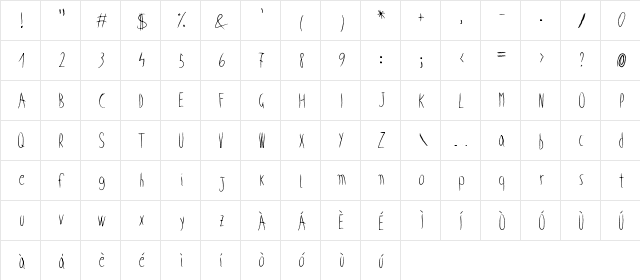
Wicked child Regular
| Foundry | Marco Ballar |
| Designer | Marco Ballar |
Design Context for Wicked child Typeface
Wicked child trades formality for fun, with bouncy, characterful letterforms that bring warmth and energy to any project.
Font Pairing: Pairs well with a rounded or humanist sans for body copy, maintaining the friendly tone without relying on Wicked child to carry extended reading.
Pro Tip: Use Wicked child at larger display sizes where its expressive character can land. Pair with a clean, simple sans for body copy to maintain readability.